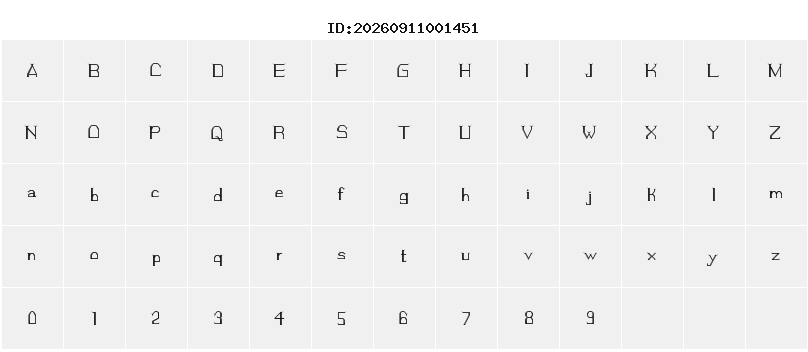
• Font Name: Vikingueiro
• Font ID: FontStruct Vikingueiro
• Full Font Name: Vikingueiro Regular
• PostScript Name: Vikingueiro
• Character Count: 99
• Copyright: Copyright Lucasgirod 2012
• Designer: Lucasgirod
• Description: ‚ÄúVikingueiro‚Äù was built with FontStruct
About Vikingueiro.ttf
Vikingueiro.ttf is a modern, elegant sans-serif font designed for ultimate readability and visual harmony. Perfect for branding, headlines, web design, and print materials.